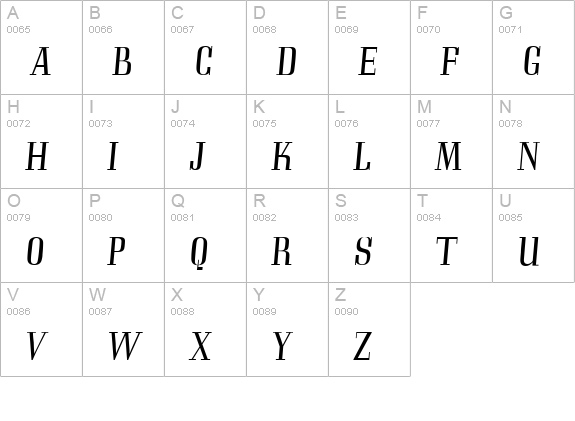
C794-Roman-Italic Font Details
C794-Roman-Italic is a distinctive, italic variant in the C794 typeface family \xE2\x80\x94 well suited to design and typography projects.
C794-Roman-Italic font exudes elegance and sophistication with its sleek and stylish design. The slanted, italicized letters give a touch of class to any design project, making it perfect for adding a touch of sophistication to invitations, logos, branding materials, and more. This versatile font is free to download at FontsMarket.com, making it accessible to designers and creatives looking to elevate their projects without breaking the bank. With its timeless appeal and modern edge, C794-Roman-Italic font is sure to make a statement and leave a lasting impression on any design it graces.